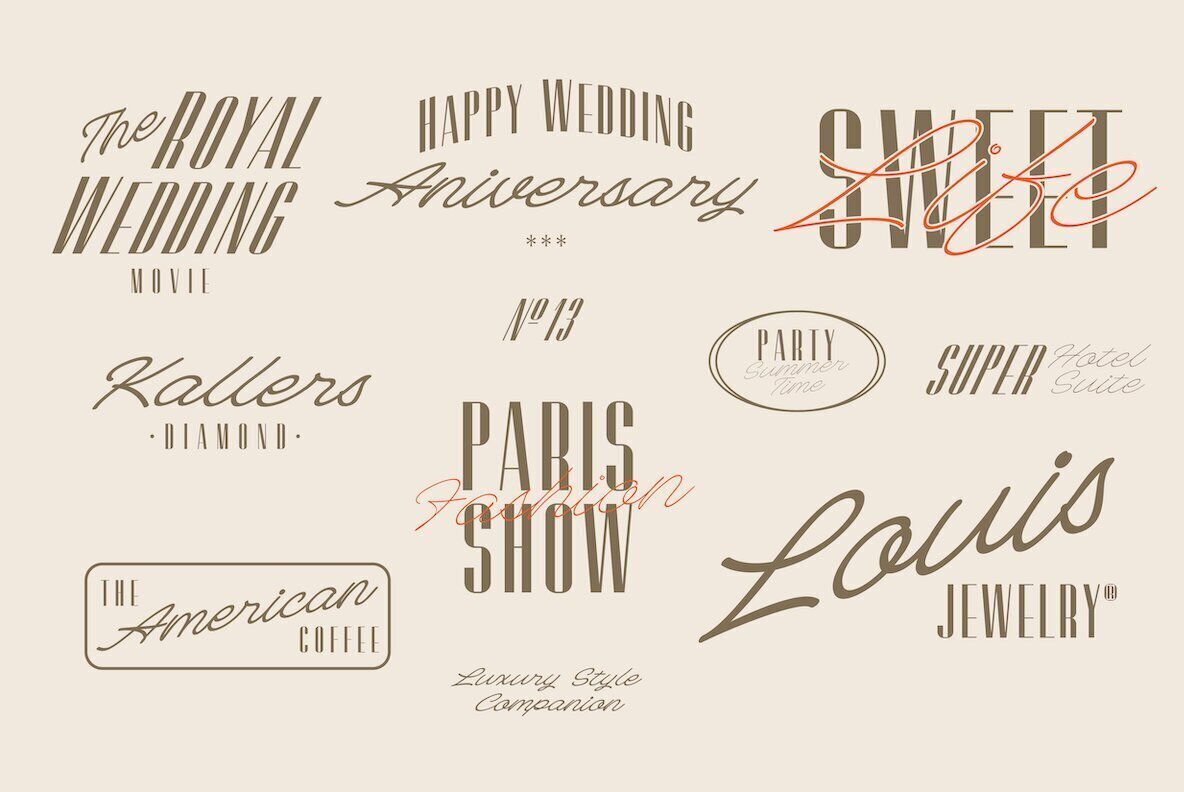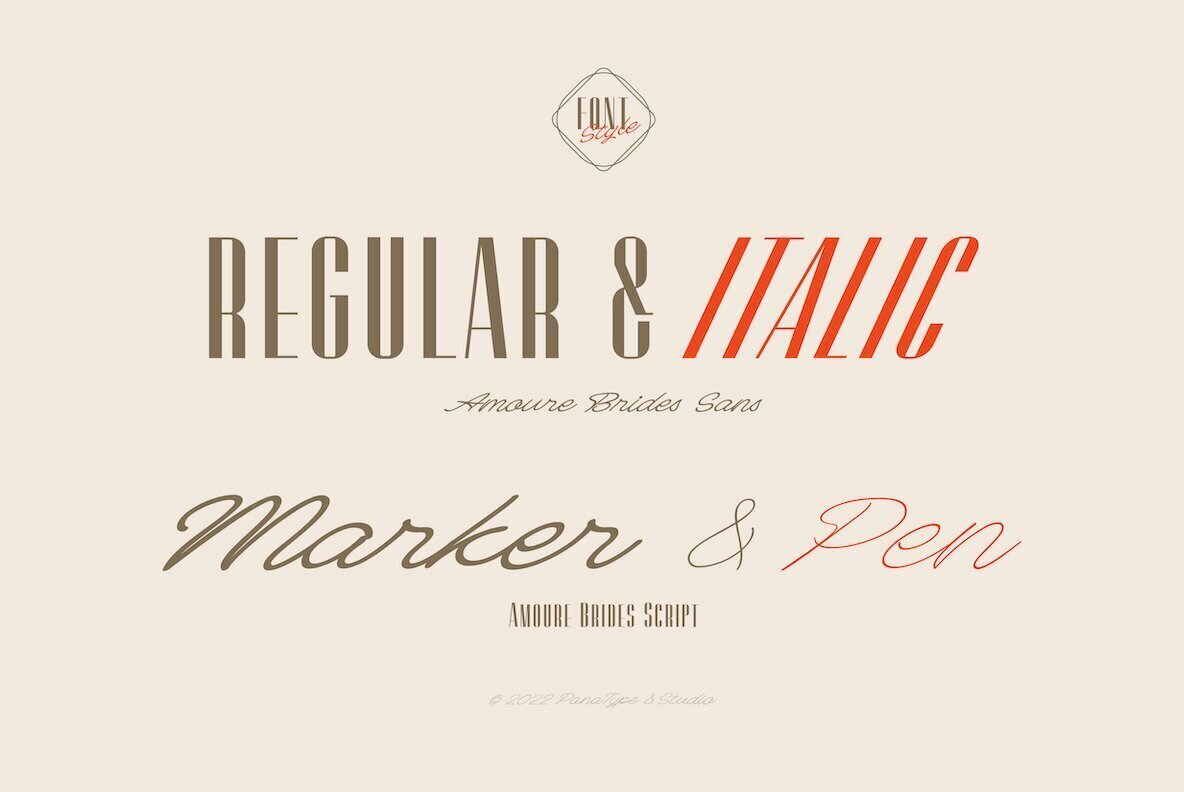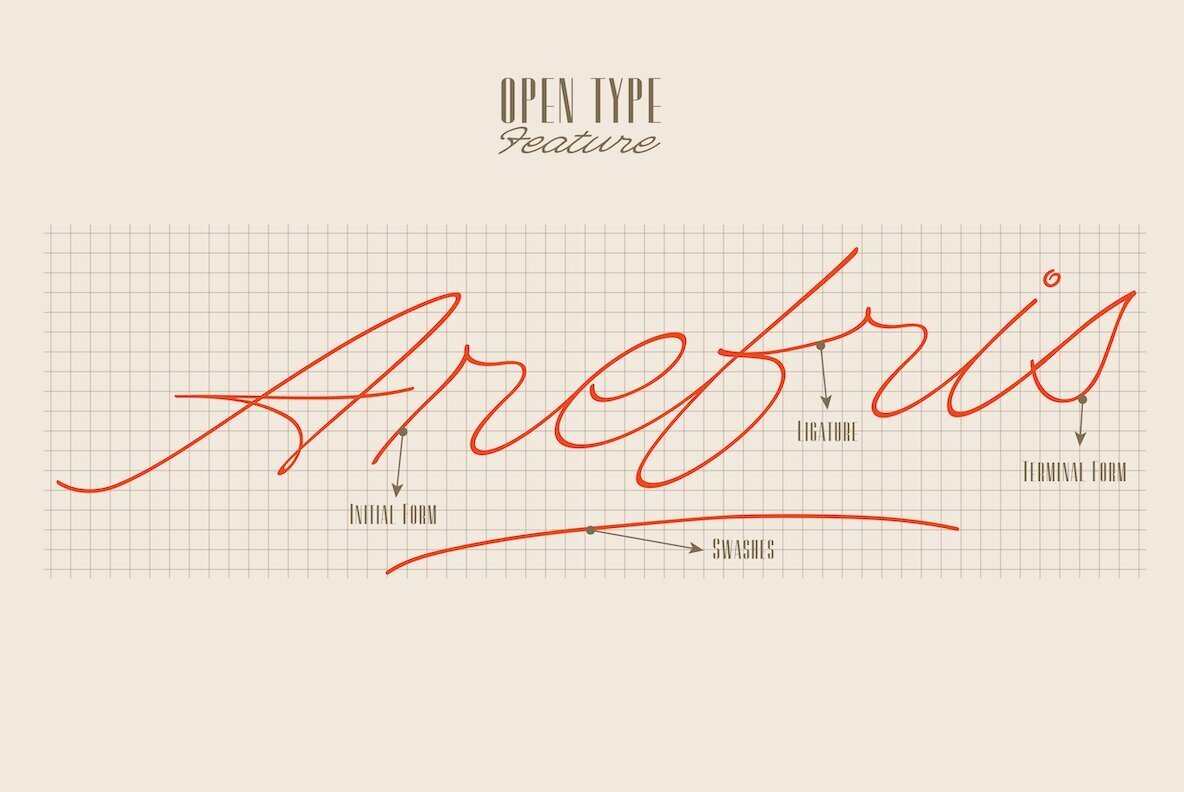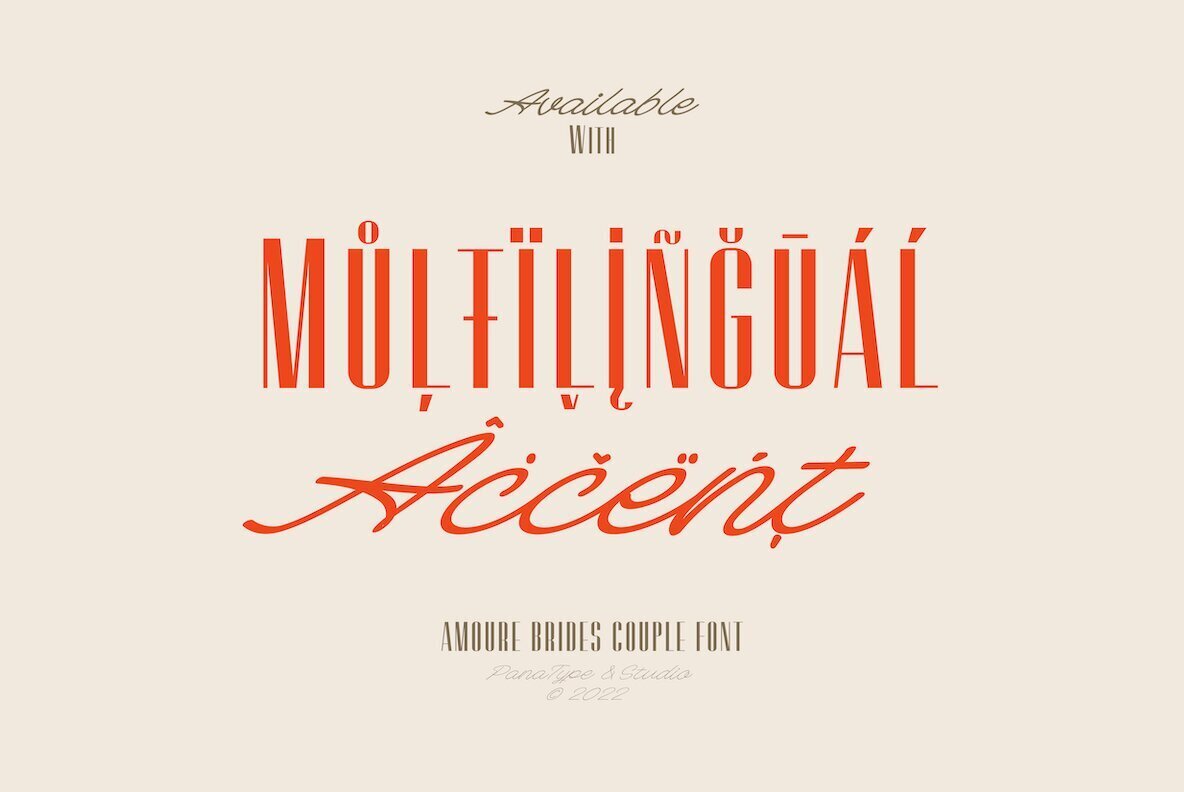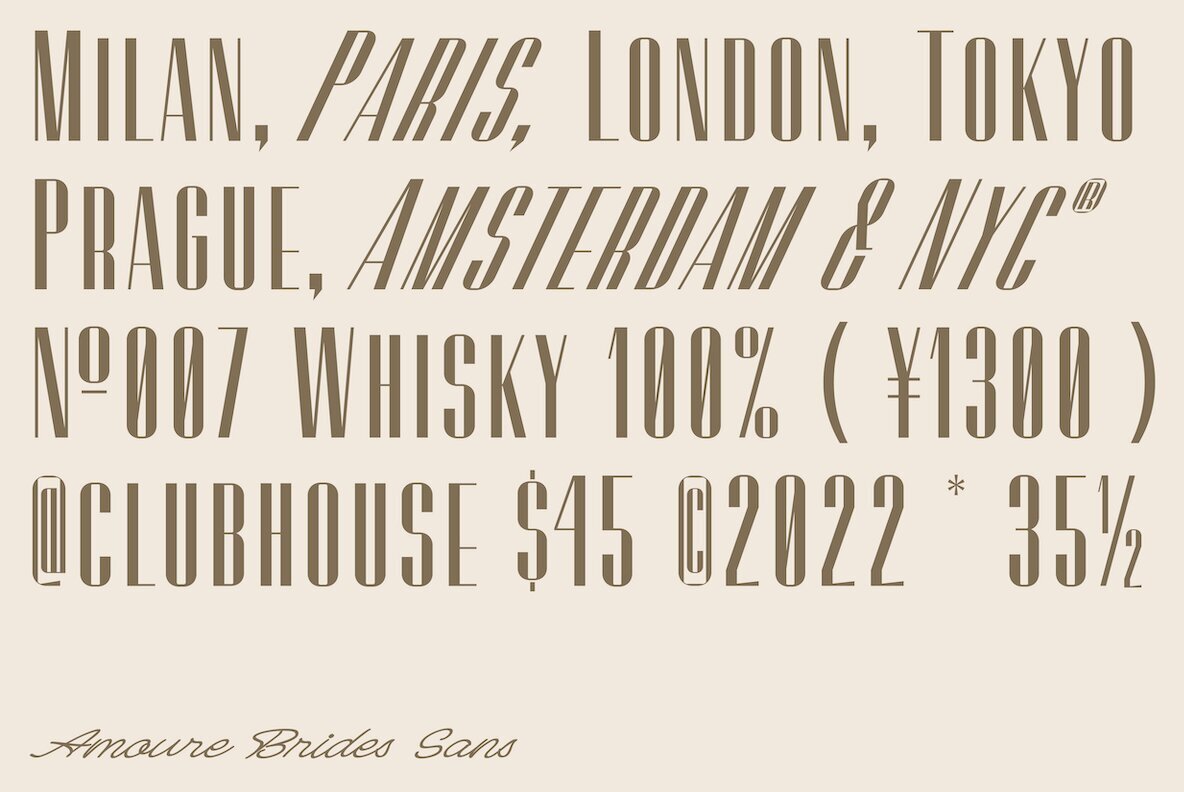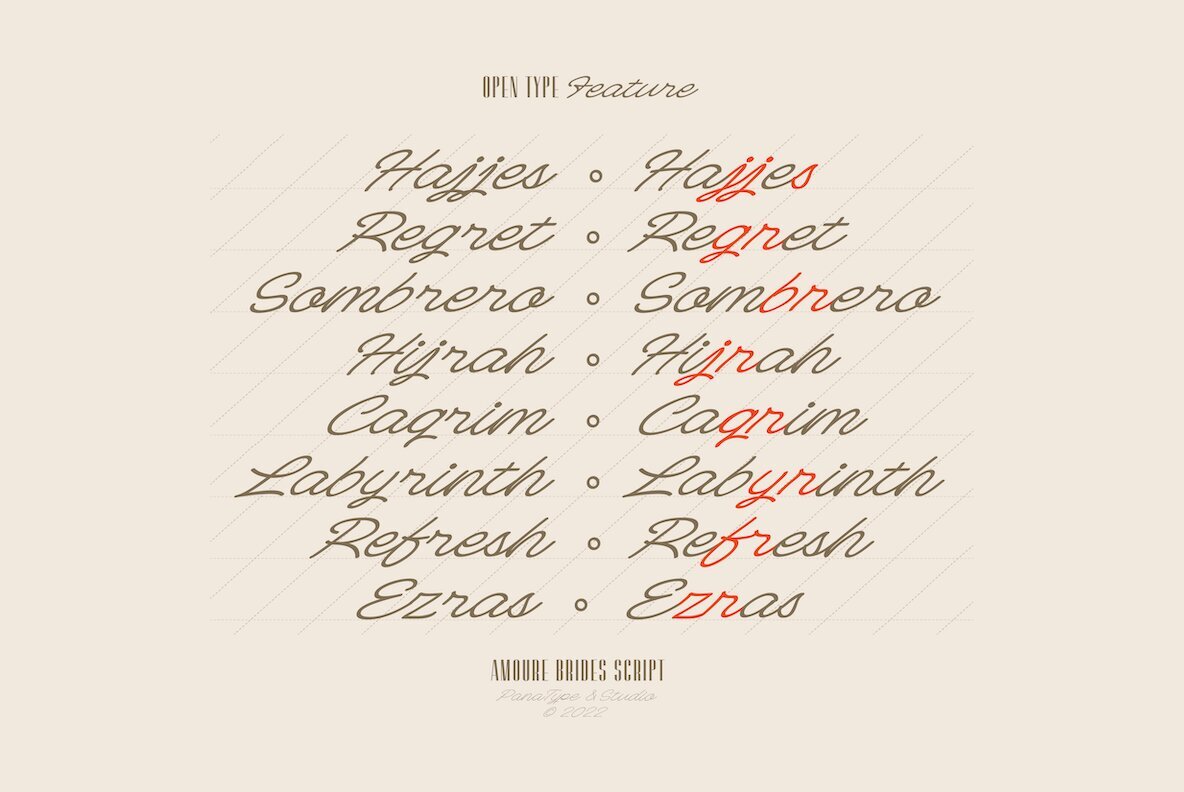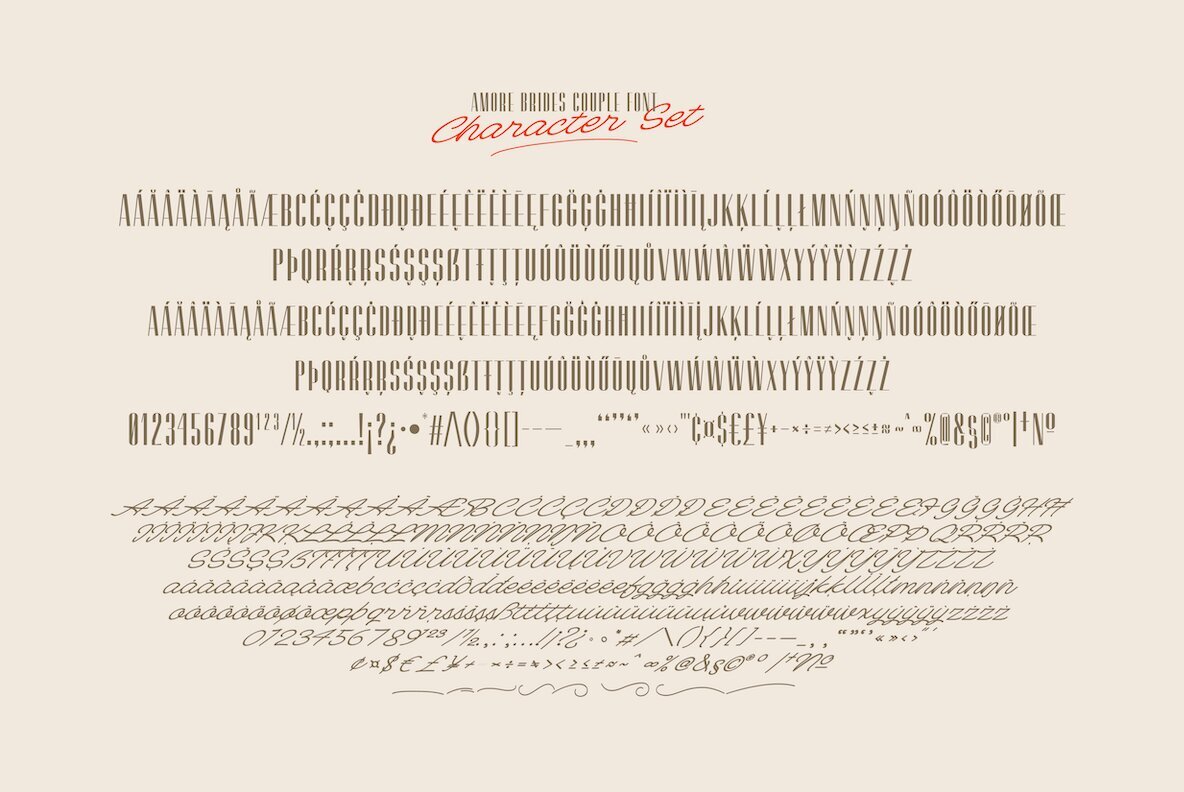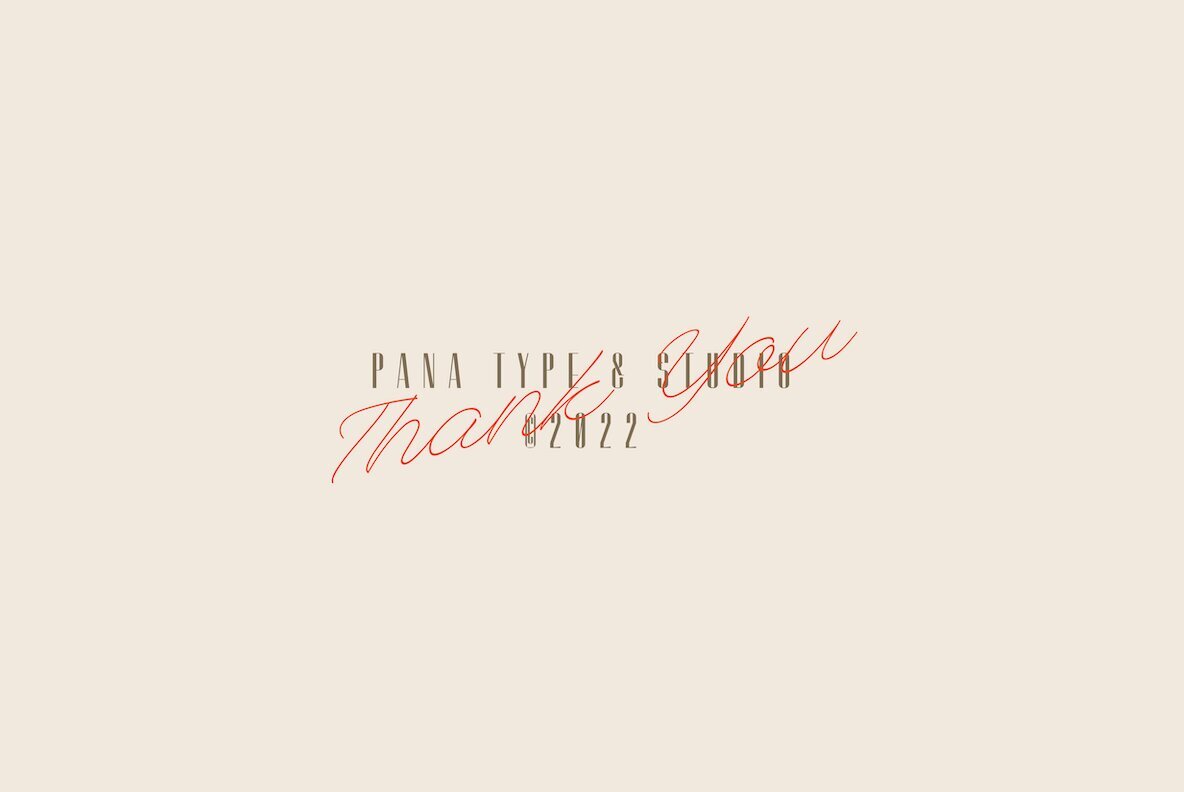
Amoure Brides Font
Amoure Brides by Pana Type & Studio presents an elegant font pairing of sans serif and handwritten script, offering a romantic touch to your designs. This harmonious combination is ideal for digital invitations, wedding themes, fashion design, logos, business cards, branding materials, and meaningful quotes.Amoure Brides: Romantic Typeface Duo